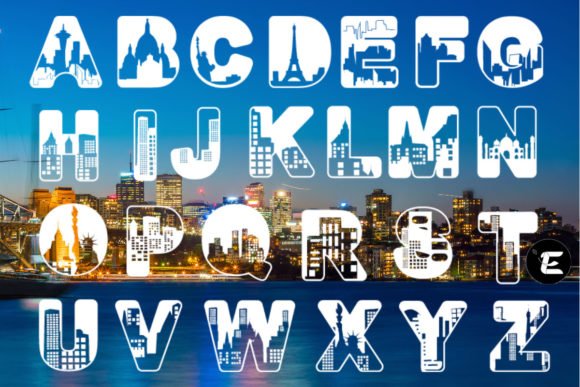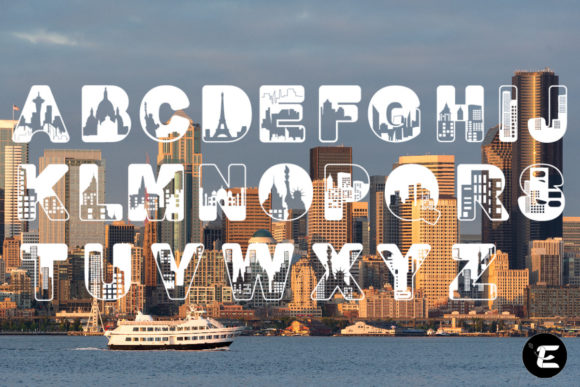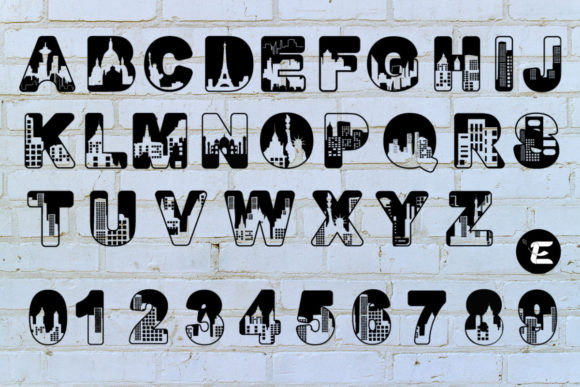
Unleash the Urban Vibes with City Scapes Graphics Font
There’s nothing quite like the feeling of creating something from scratch, watching your ideas come to life with every brushstroke, click, or keystroke. You’ve poured your heart and soul into a project, and it’s finally time to add the finishing touches. The perfect font can make all the difference, elevating your design from ordinary to extraordinary.
Enter City Scapes Graphics Font, a fun and uniquely designed decorative font that’s about to become your new go-to. Whether you’re designing a cityscape, a travel brochure, or just a quirky social media post, this font is the perfect companion to bring your vision to life. Its versatility and charm make it an invaluable asset to any designer’s library, guaranteed to elevate any creation and leave a lasting impression.
City Scapes Graphics Font Key Features
- Character Set: Includes a wide range of characters, including uppercase and lowercase letters, numbers, and special characters, making it suitable for various design projects.
- Unique Characteristics: The font features a unique blend of modern and urban elements, with bold lines, geometric shapes, and a dynamic feel that’s perfect for city-themed designs.
- Scalability: Designed to be highly scalable, the font remains legible and visually appealing at various font sizes, from small text to large headlines.
City Scapes Graphics Font Review
I recently had the chance to work with the City Scapes Graphics Font, and I must say, it’s a unique addition to any design project. ✨ The font’s modern and sleek aesthetic makes it perfect for urban-themed designs, and its versatility allows it to be used in a variety of contexts, from brochures to websites.
- ✨ High-quality design: The font’s clean lines and geometric shapes make it a standout in any design.
- ✨ Versatile: Suitable for a range of design applications, from print to digital.
- ✨ Easy to read: The font’s clear typography ensures that your message is conveyed effectively.
However, there are some limitations to consider: ⚠️ The font’s complexity can make it challenging to use for those with limited design experience. Additionally, some users may find the font’s modern style to be too trendy or overused.
Overall, I’d say that the City Scapes Graphics Font is a solid choice for designers looking to add a touch of urban flair to their projects. While it may not be the best fit for every design, its unique style and versatility make it a valuable addition to any designer’s toolkit.
Use City Scapes Graphics Font for urban-themed projects, such as:
Cityscape illustrations
Travel brochures
Urban-themed posters